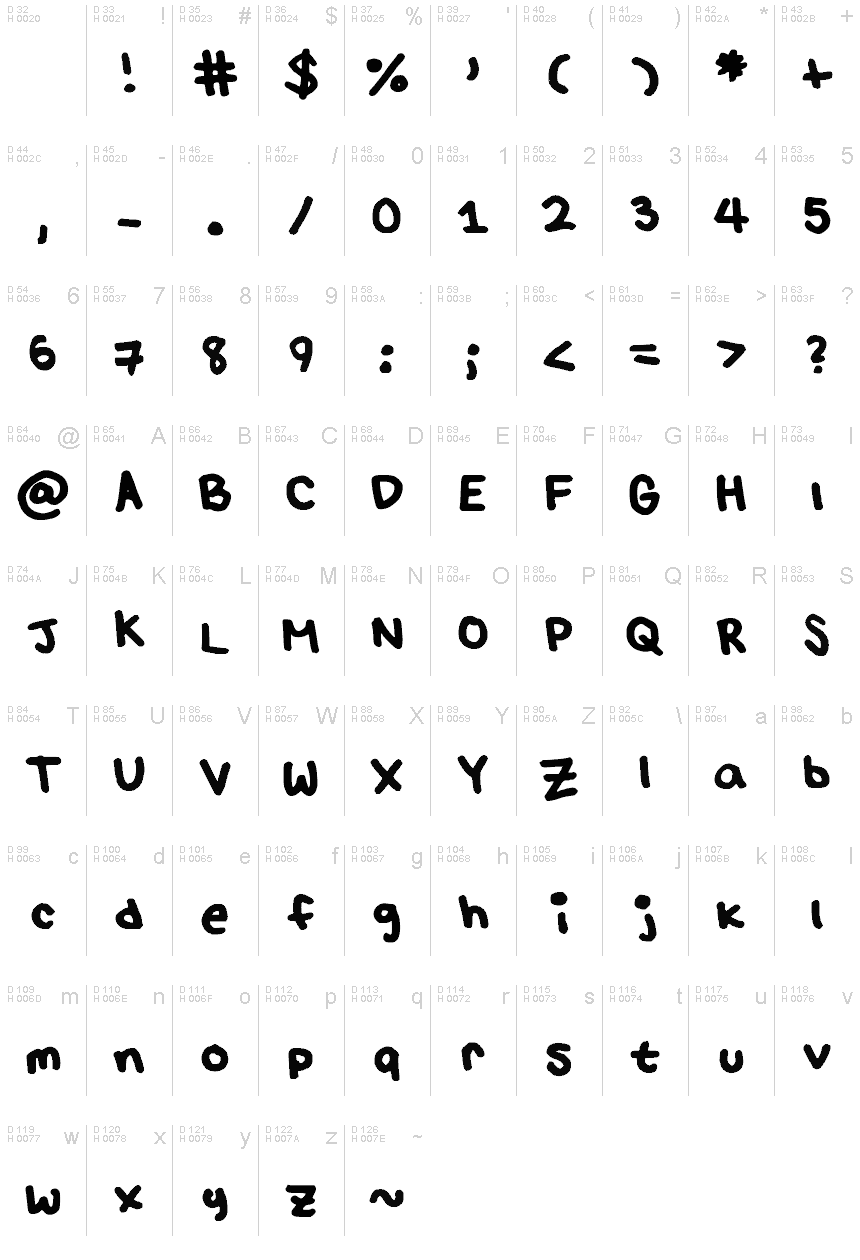
LulusFont
Lulus Font, designed by the talented Lucia, is a captivating handwritten typeface that exudes a bold, expressive charm. This font's dynamic strokes and organic forms create a sense of movement and energy, making it a captivating choice for a wide range of design applications. The bold weight adds a touch of confidence and authority, while the handwritten style lends a personal, artisanal feel to any project.
Lulus Font's versatility shines through in its ability to complement both modern and vintage-inspired aesthetics. Its distinctive character makes it an excellent selection for headlines, logo design, packaging, and editorial layouts, where it can infuse a project with a touch of personality and flair. Whether you're crafting a brand identity, designing a magazine spread, or creating eye-catching marketing materials, Lulus Font by Lucia offers a distinctive typographic solution that is sure to leave a lasting impression.